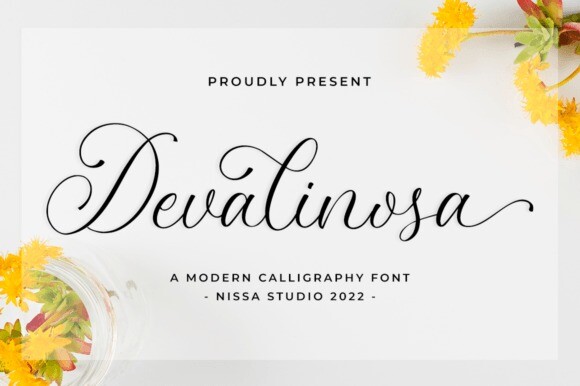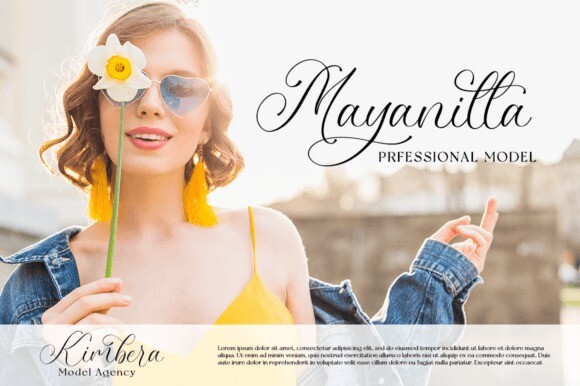
Devalinosa Font
The Devalinosa is a beautiful script font. It has a classy, elegant, and modern look which can be used for logos, branding, invitations, stationary, wedding designs, social media posts, and every other design which needs a handwritten touch. This font is PUA encoded, which means you can access all of the glyphs and swashes with ease!